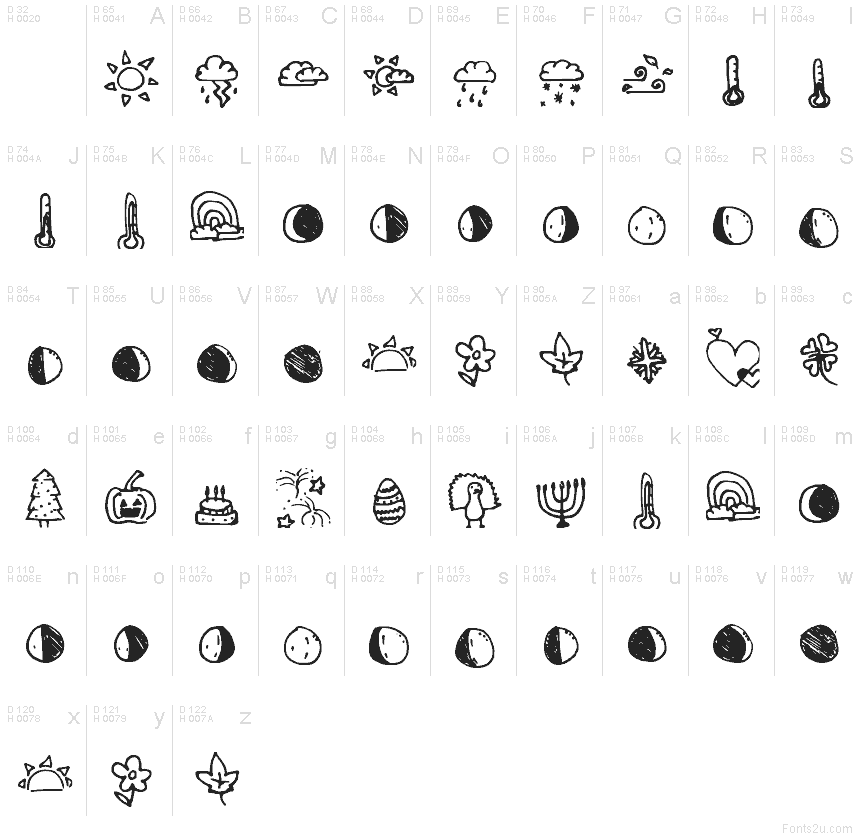
Weather Seasons And Hol Regular
Weather Seasons And Holiday font by BeepBoopFonts is a free dingbat typeface. It packs hand-drawn, inky icons for every season-think a wobbly snowflake, a stitched-looking heart, a lucky clover, a piney tree, a grinning pumpkin, and a candle-topped cake. The lines have a friendly shake to them, so you get instant warmth and occasion without hiring an illustrator or hunting for clip art.
Using Weather Seasons And Holiday, drop quick accents into party invites, classroom worksheets, planners, calendars, gift tags, greeting cards, or social posts. The icons read clearly at small sizes and feel charming when scaled big for stickers. Pair this free font’s doodly shapes with a clean sans to keep layouts tidy, and bump icon size 120–160% to make dates and headlines pop.
A set of icons for weather, seasons, moon phases, and holidays.